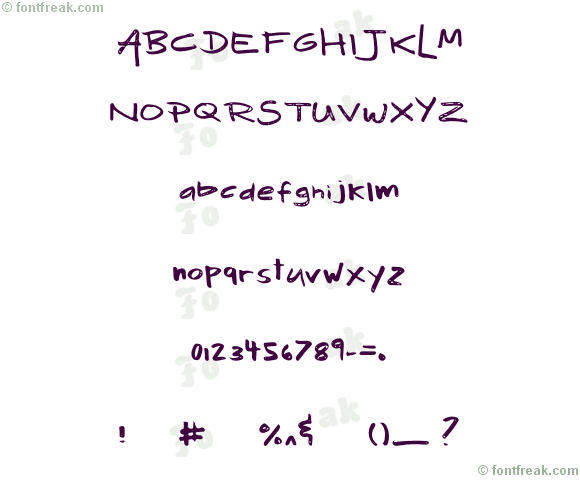
Mix Motley Regular
Mix Motley Regular, designed by Mikko Sumulong, is a charming handwritten font that effortlessly combines playful elegance with a touch of whimsy. This font falls into the script category, characterized by its fluid, organic strokes that evoke a sense of spontaneity and creativity. The stroke weight varies throughout the characters, creating a delightful contrast that captures attention while maintaining readability. The spacing is generous, allowing each letter to breathe, which enhances the overall legibility and aesthetic appeal.
This versatile font is perfect for a variety of use cases. It shines in wedding invitations, where its casual yet elegant style can convey personal sentiments beautifully. Mix Motley Regular is also ideal for creative projects such as children's book covers, where its playful nature resonates with young audiences. Additionally, restaurant menus can benefit from this font, particularly in casual dining establishments, where it adds a friendly and inviting touch. Graphic designers will find this font valuable for branding projects, as it can convey a fun and approachable personality. Content creators can also utilize it for social media graphics, enhancing engagement with visually appealing text.
What truly sets Mix Motley Regular apart is its ability to blend a relaxed, handwritten feel with professional elegance. This font not only adds a personal touch to any design but also captures the essence of creativity and individuality. For those seeking a distinctive typeface, the Mix Motley Regular font free download offers an excellent opportunity to elevate your design projects.